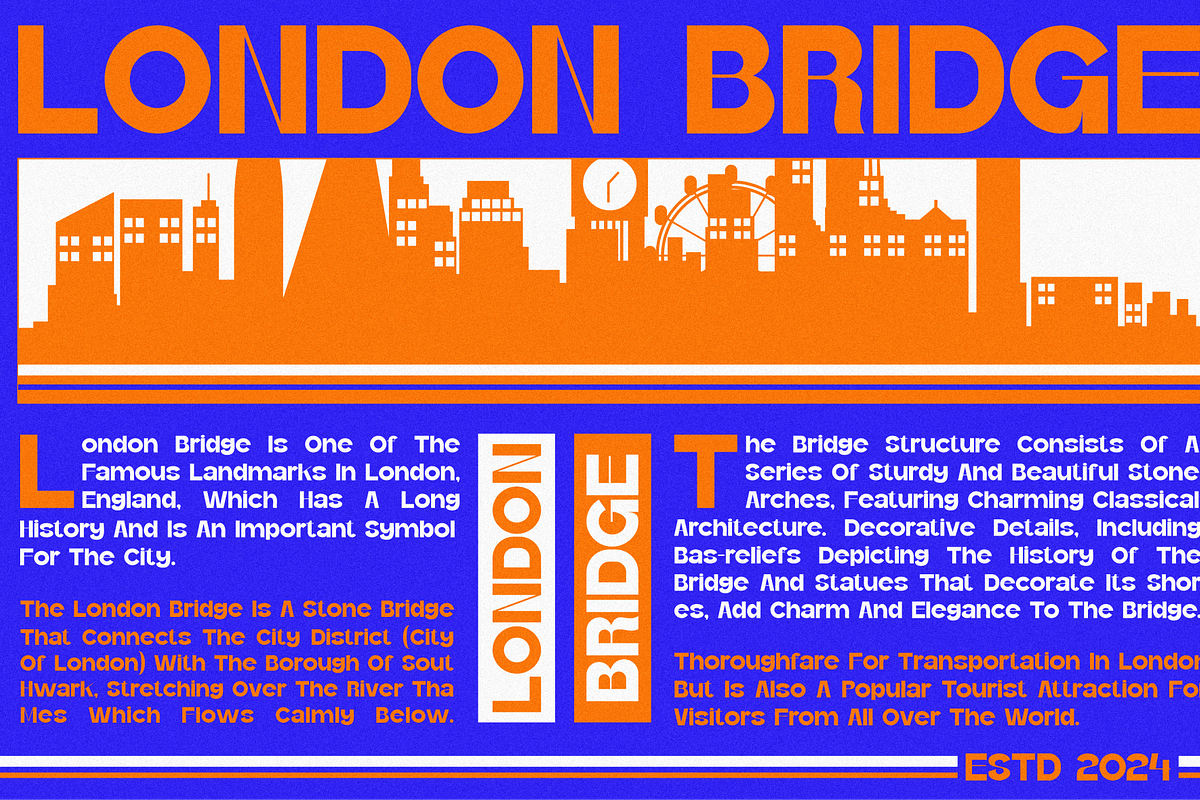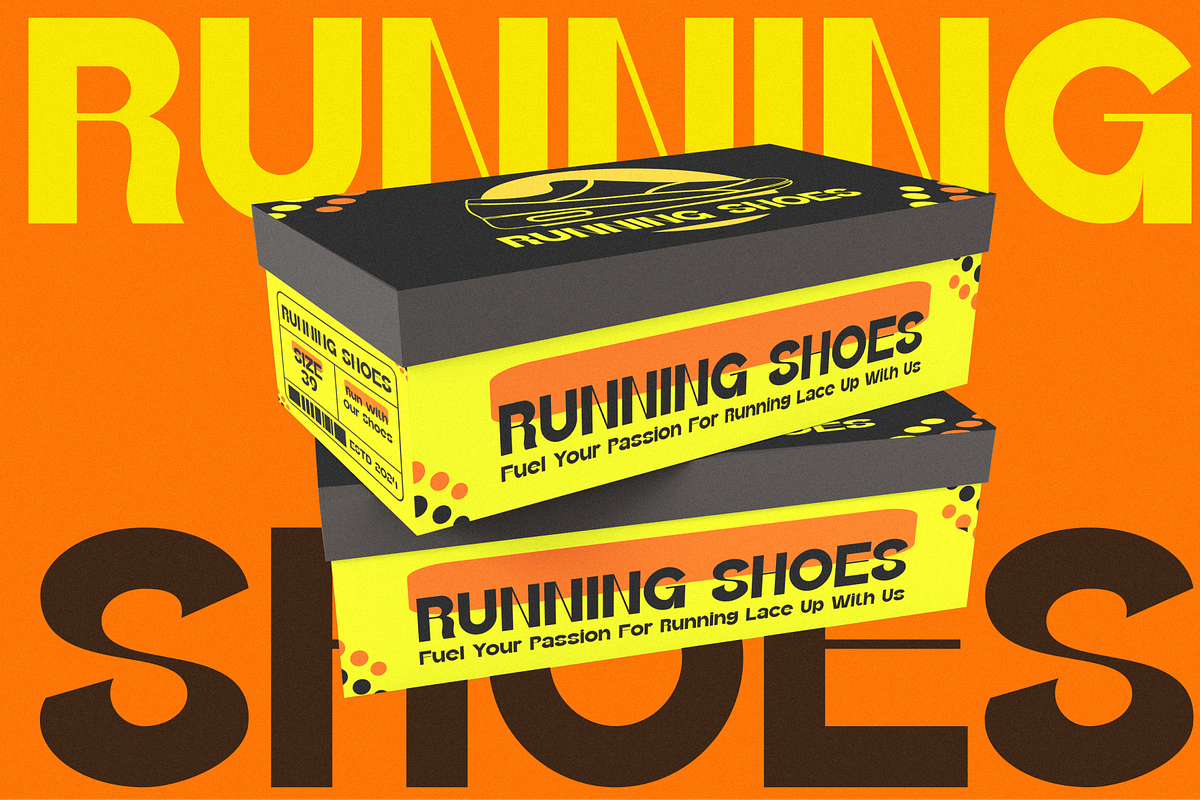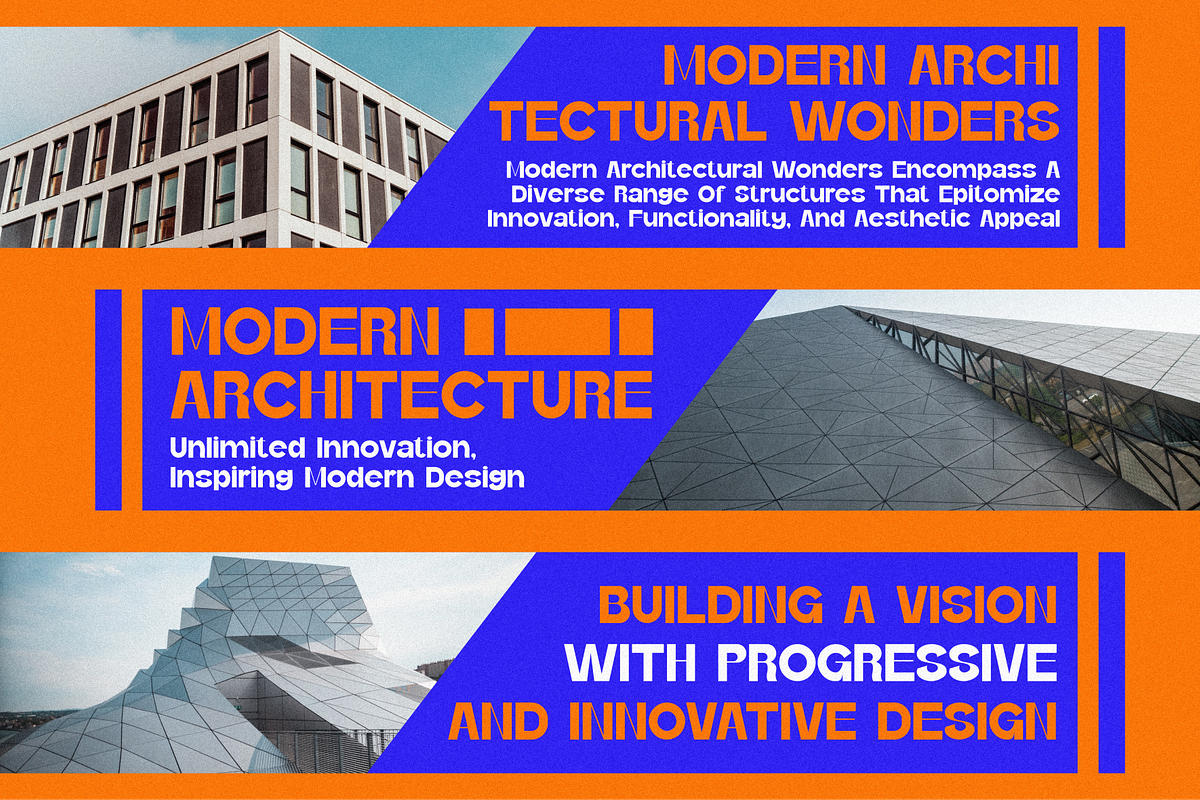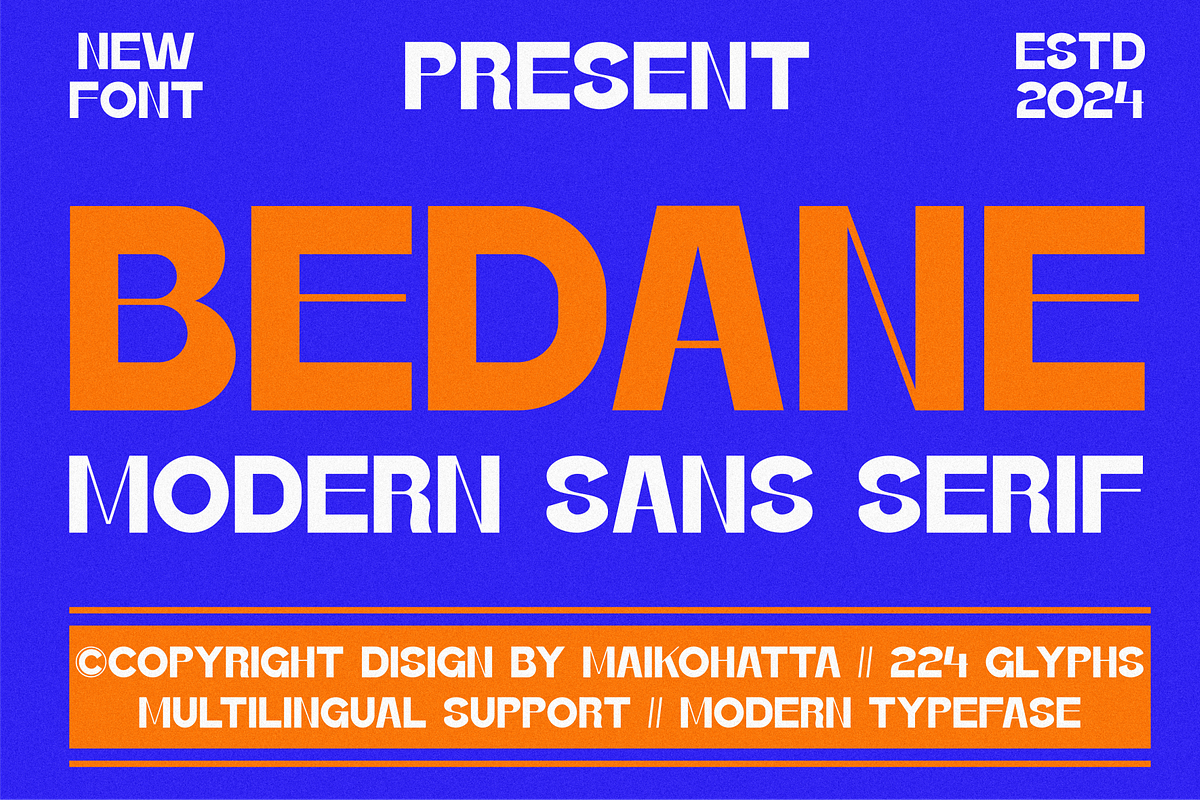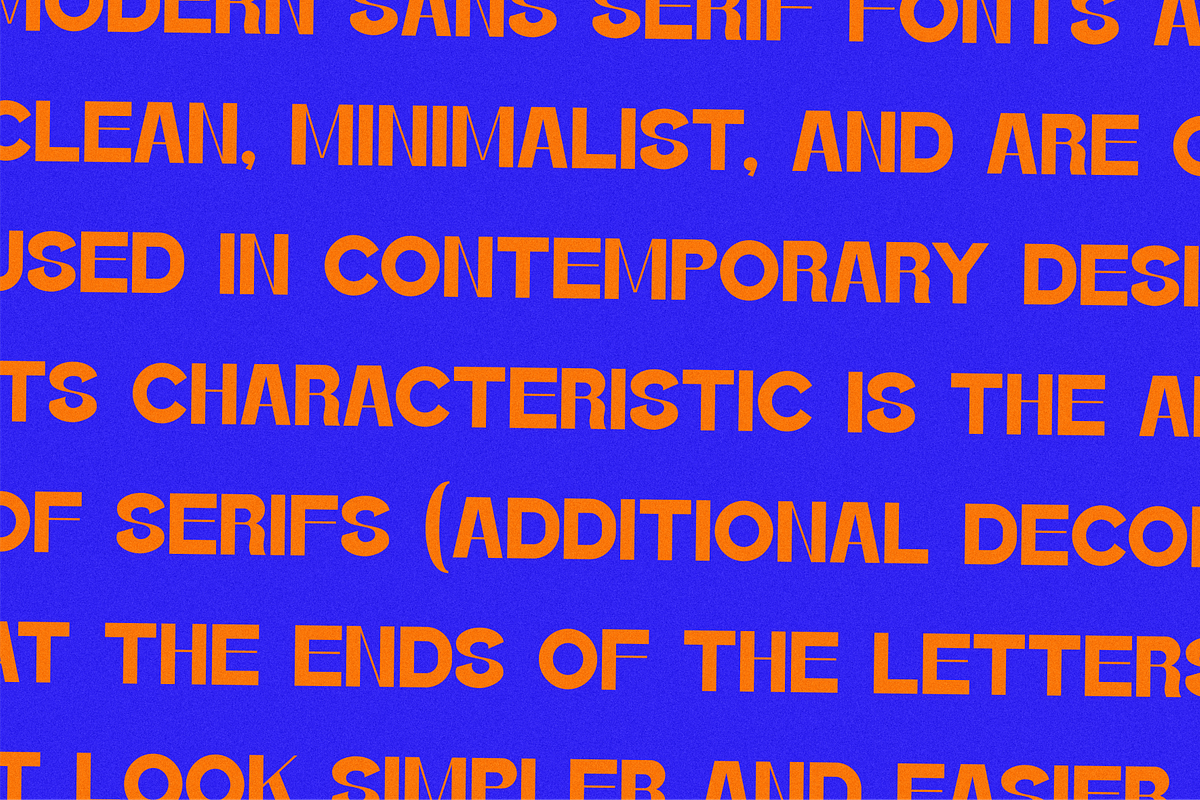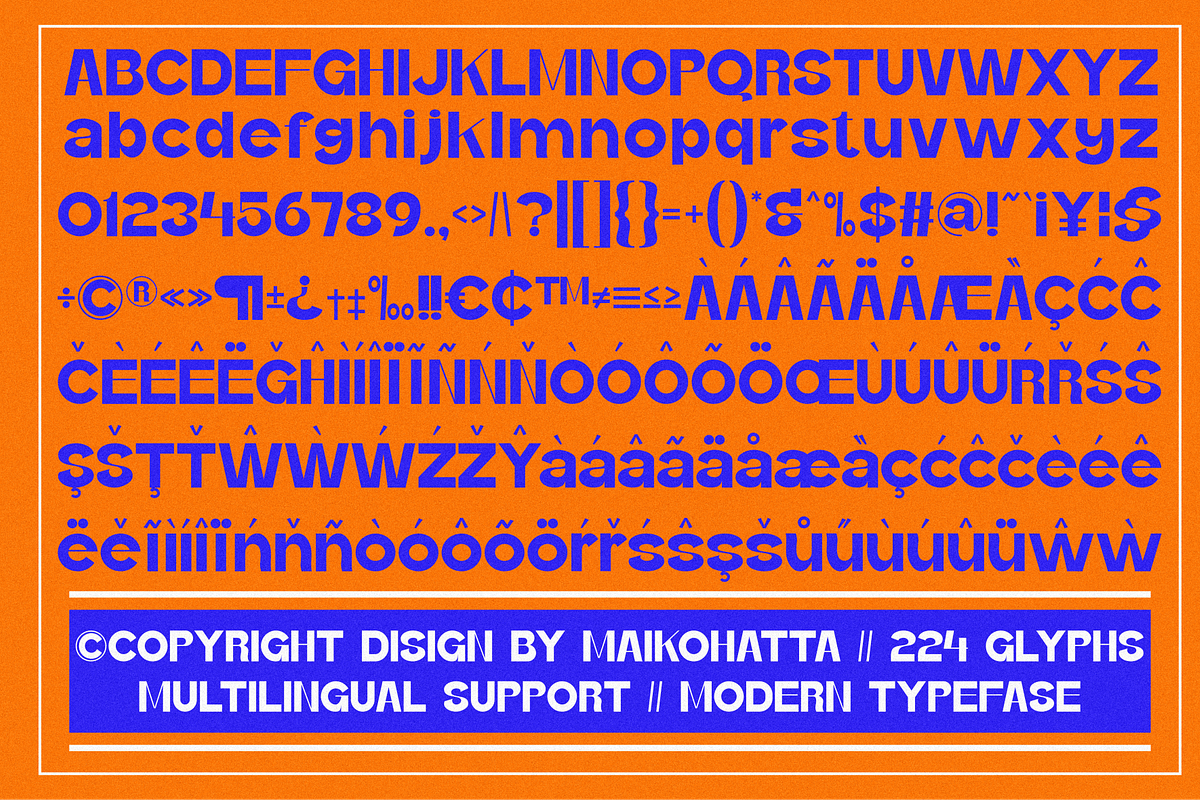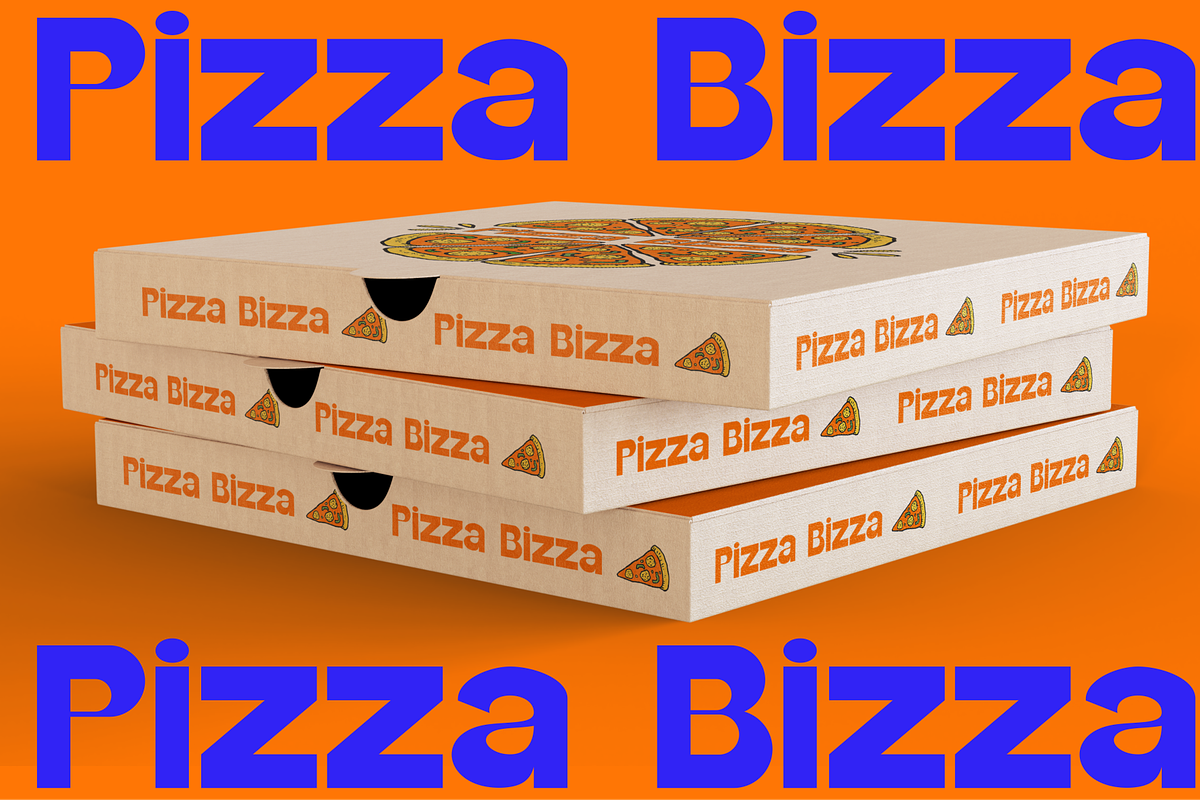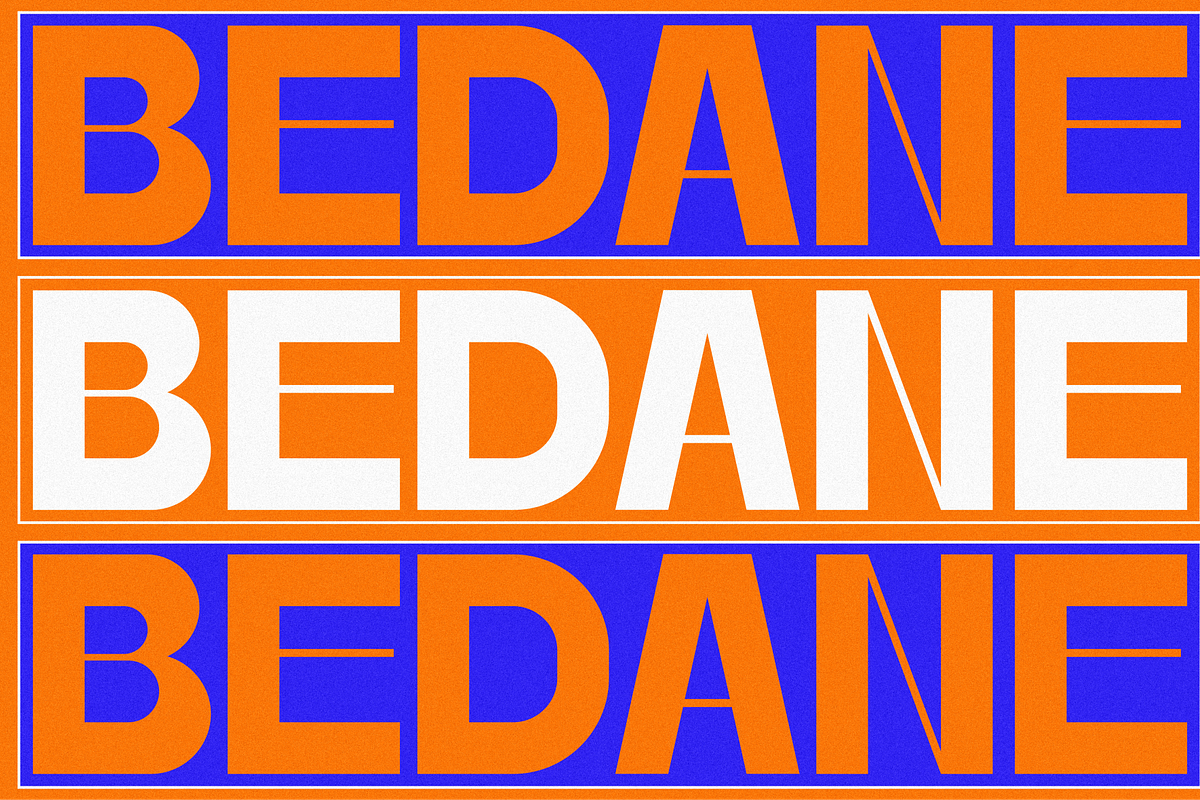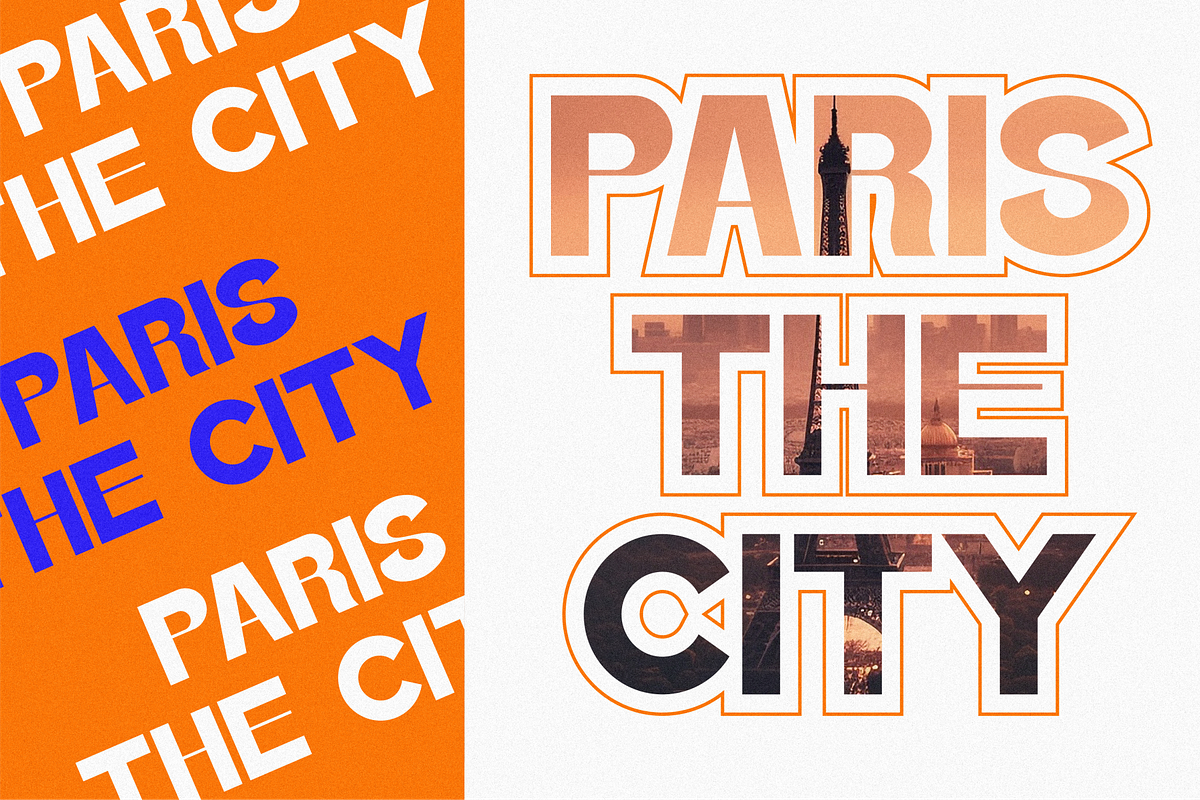
Bedane - Modern Sans Serif
Introducing our new product Bedane - Modern Sans Serif
Bedane - Modern Font is a bold and authentic display font. The font is suitable for any branding project like logo, Template Design, esport, and many more. outstanding in a wide range of contexts.